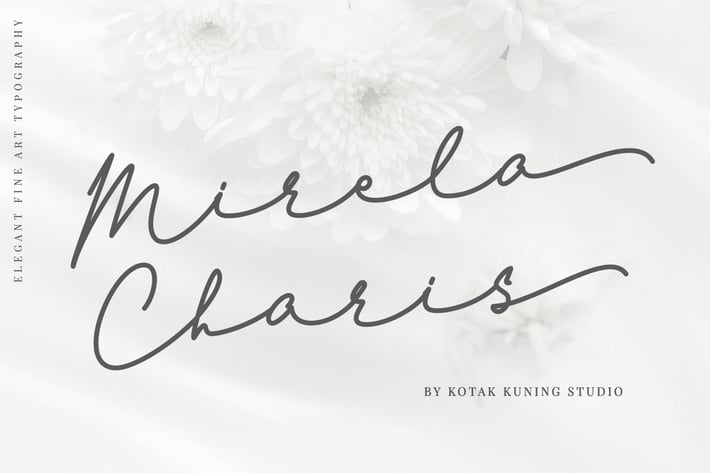
Mirela Charis - Stylish Signature Font
Mirela Charis stylish signature Font with a natural & stylish flow. This font has a multitude of natural-looking ligatures in its OpenType features - making the font look as close to natural handwriting as possible. This collection of scripts is perfect for personal branding.
Mirela Charis Font Font is perfect for many different projects such as logos & branding, invitation, stationery, wedding designs, social media posts, advertisements, product packaging, product designs, label, photography, watermark, special events, or anything.